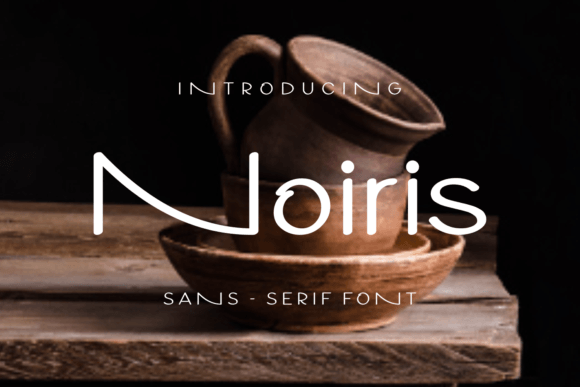
Prepare to be mesmerized by Noiris, an extraordinary display font that exudes sophistication and charm. Its captivating presence commands attention, leaving an indelible mark on all who encounter it. Whether you seek to design alluring book covers, captivating posters, or eye-catching social media graphics, Noiris is your ultimate companion.
Unleash your inner artist and let Noiris guide you towards creative brilliance. This font is more than just a collection of letters; it's an invitation to embark on a typographic journey where imagination knows no bounds. Express your unique style with confidence, knowing that Noiris will effortlessly elevate your designs to new heights.
Step into a world where fonts ignite emotions and captivate audiences. Noiris is not just a font; it's an experience. Its carefully crafted characters dance across the page, captivating readers and leaving them spellbound. Elevate your designs to the pinnacle of excellence with Noiris, the font that transforms words into art.